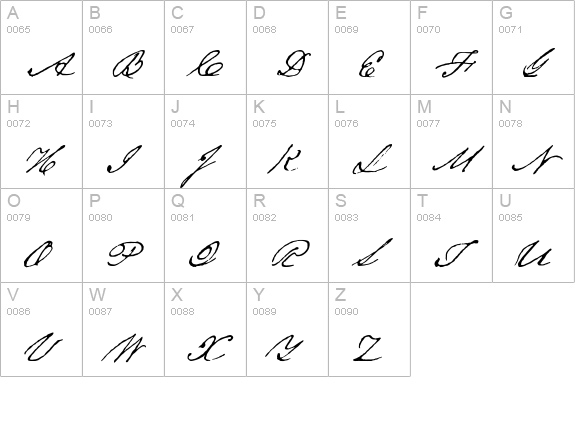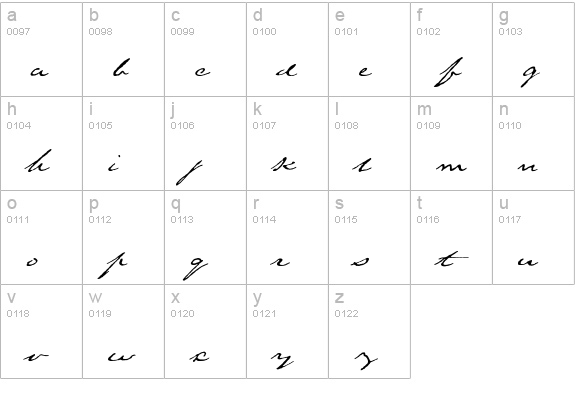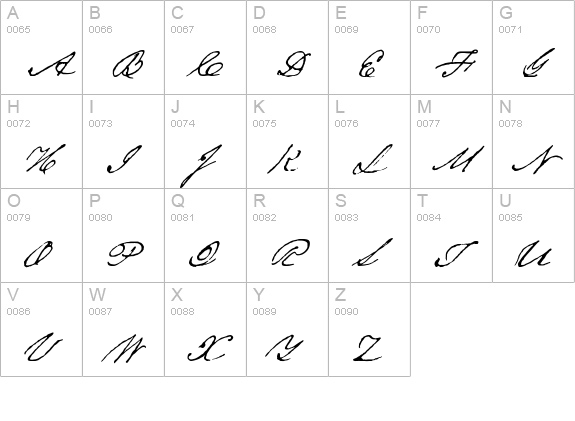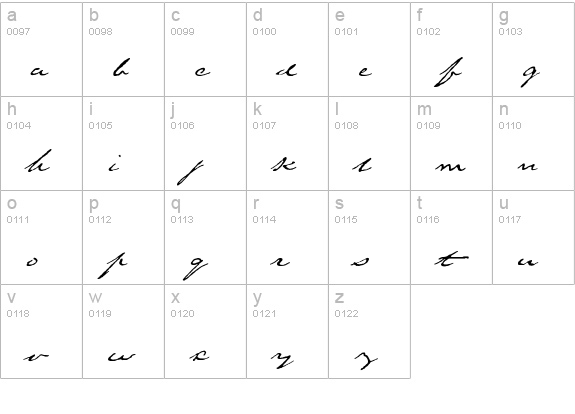
Saeculum Font Details
Introducing Saeculum, a breathtaking font that embodies elegance, sophistication, and timeless beauty. With its stunning letterforms and delicate curves, Saeculum is a true testament to the artistry of typography. This versatile font is perfect for a wide range of design projects, from wedding invitations to magazine layouts, branding materials to website headers. Saeculum is a font that effortlessly captures attention and leaves a lasting impression. Its graceful strokes and unique character variations make it stand out among the crowd, adding a touch of refined elegance to any project. Whether used in bold headlines or subtle accents, Saeculum will elevate your designs to new levels of sophistication. What makes Saeculum even more remarkable is that it is free and readily available for download at FontsMarket.com. This means that you can bring the essence of this exceptional font into your creative endeavors without any cost. With just a few clicks, you can access Saeculum and unlock its full potential for your design projects. Saeculum is not just a font; it is a statement of style and creativity. Its timeless beauty and versatility make it an invaluable tool for designers seeking to make a lasting impact. Download Saeculum today from FontsMarket.com and experience the freedom of creating with this extraordinary font. Let your imagination run wild and watch as your designs come to life with the magic of Saeculum.